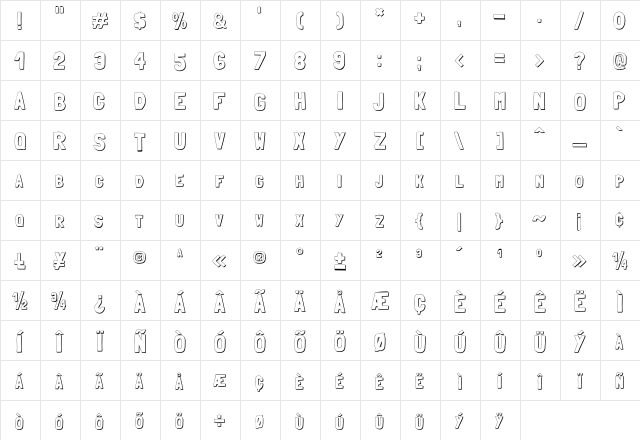
Folk shadow
| Foundry | Marcelo Magalhaes |
| Designer | Marcelo Magalhaes |
Design Context for Folk Typeface
Folk brings ornamental detail and strong personality to headlines and identities, where visual impact matters more than quiet functionality.
Font Pairing: Pair with a clean neutral sans-serif for body copy to let Folk's character lead without overwhelming the composition.
Pro Tip: Treat Folk as the centrepiece of your typographic hierarchy. One strong heading set in a decorative face can carry an entire layout.